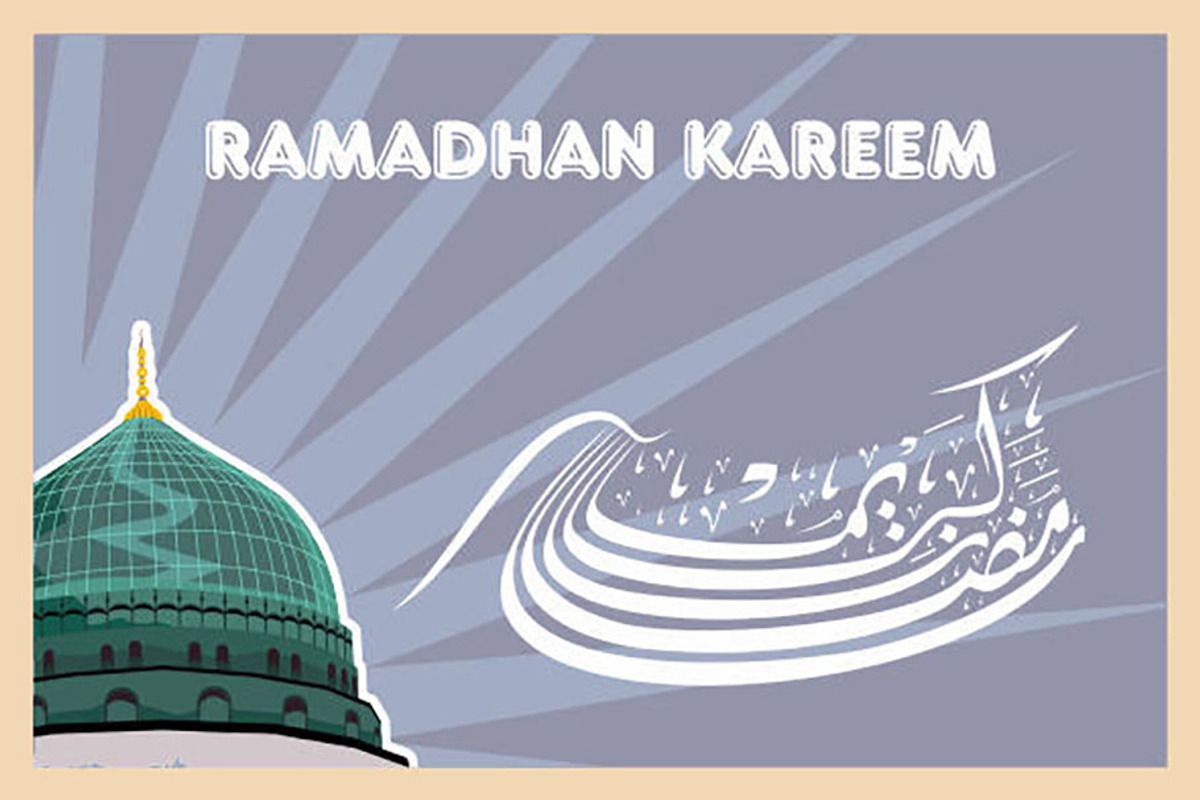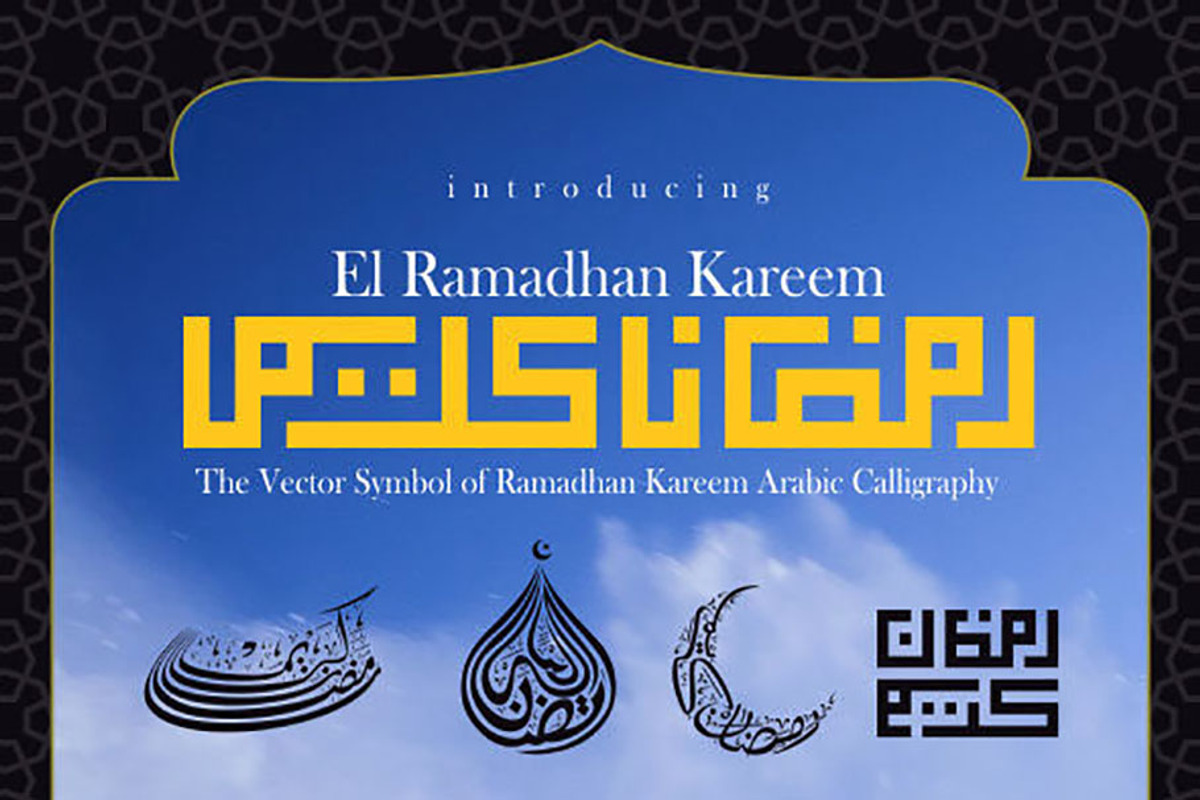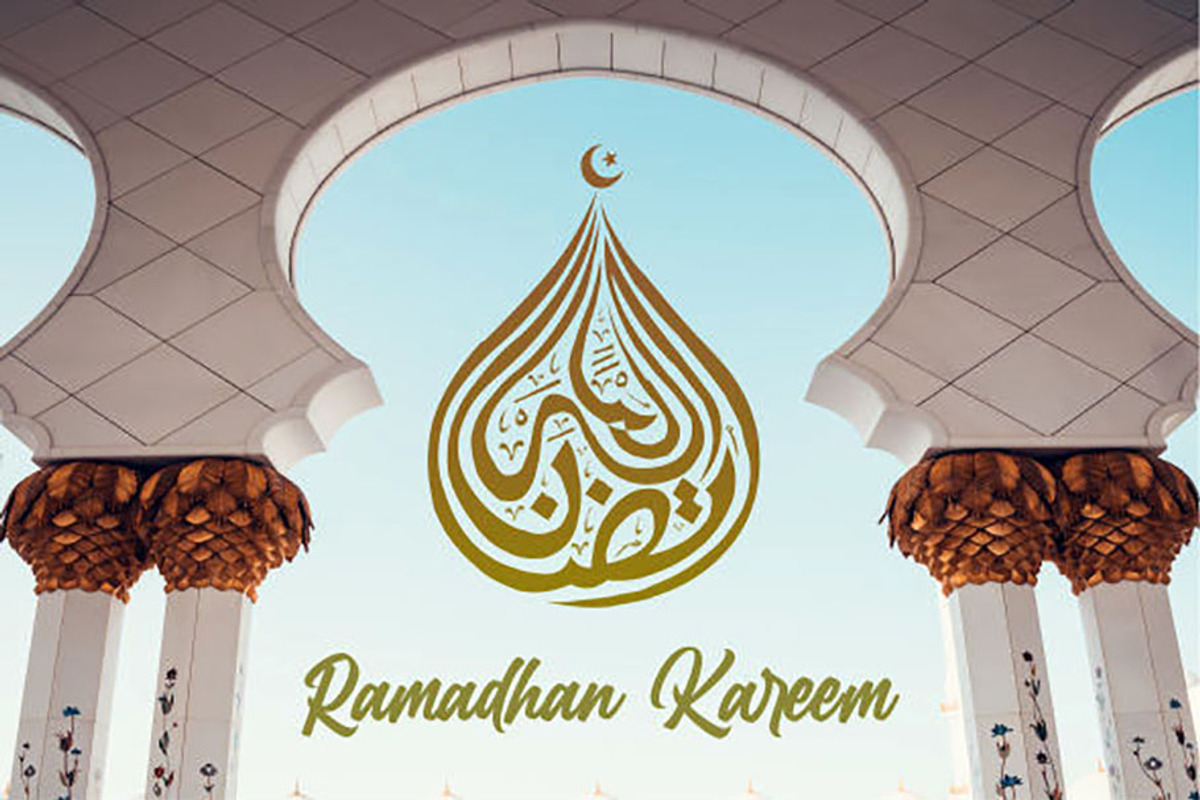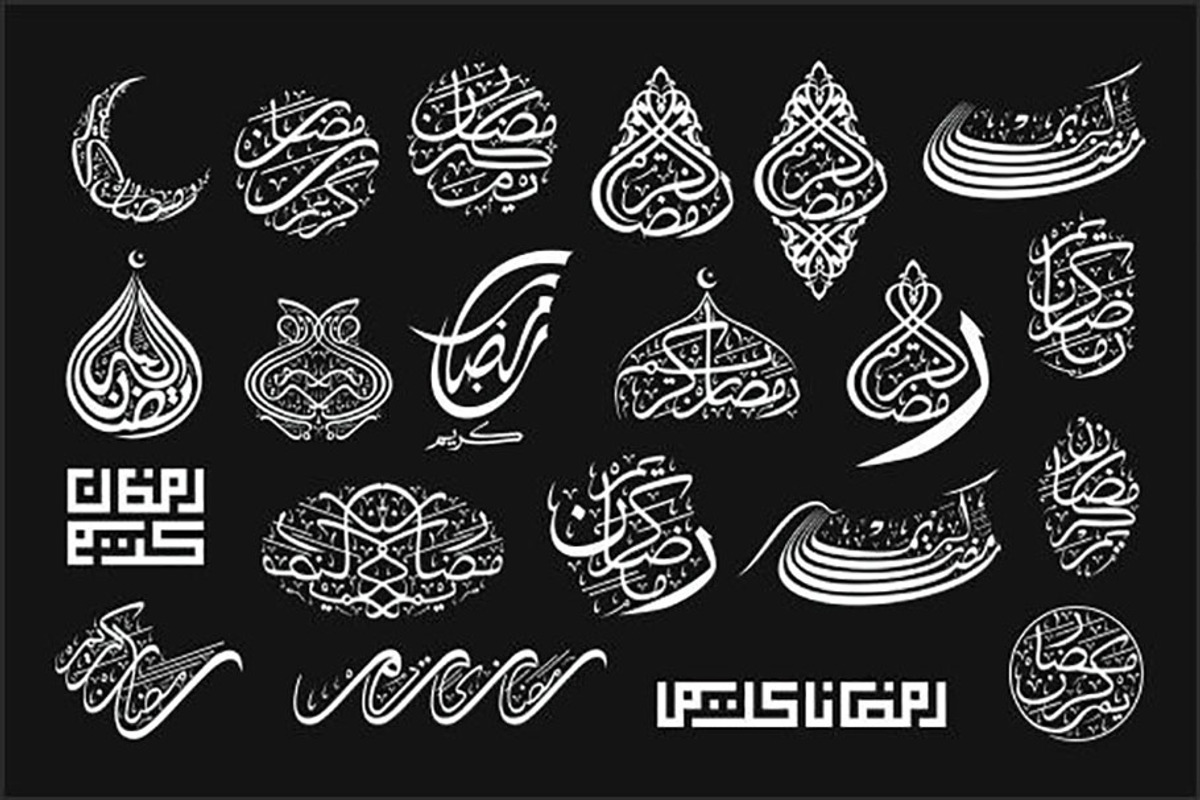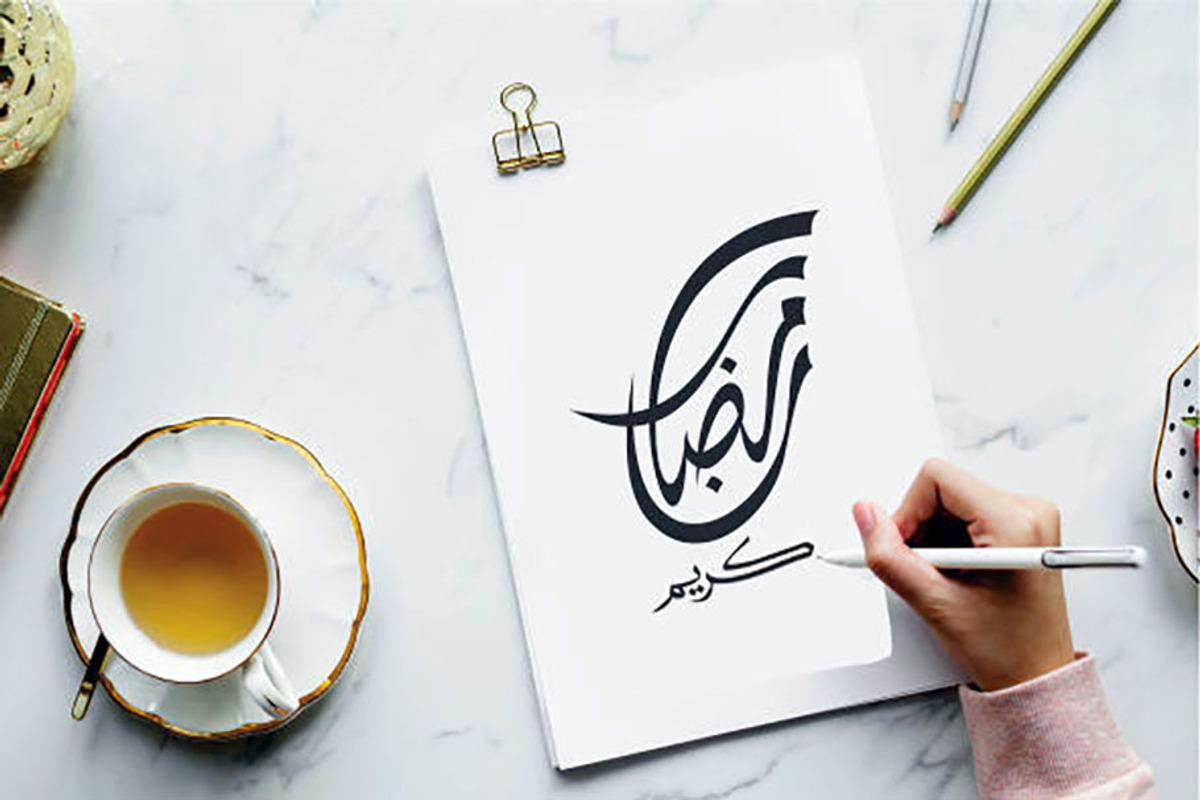
El Ramadhan Kareem - Arabic Symbol
Introducing a Arabic calligraphy typeface. It name is El Ramadhan Kareem symbol. El Ramadhan Kareem is vector symbol for your any graphic designs. It have three formats, TTF OTF and WOFF. Ramadhan Kareem in Arabic calligraphy suitable for designs that put themes like Ramadhan Kareem, Ramadhan month, Islamic, arabic or everything about moslems people. You can use set of Ramadhan Kareem in Arabic calligraphy for any things. Invitation, banner, social media, greeting, t-shirt, sticker and others. Now, it is exactly time to download and use this set of Ramadhan Kareem in Arabic calligraphy for prepare Ramadhan month. Enjoy it.